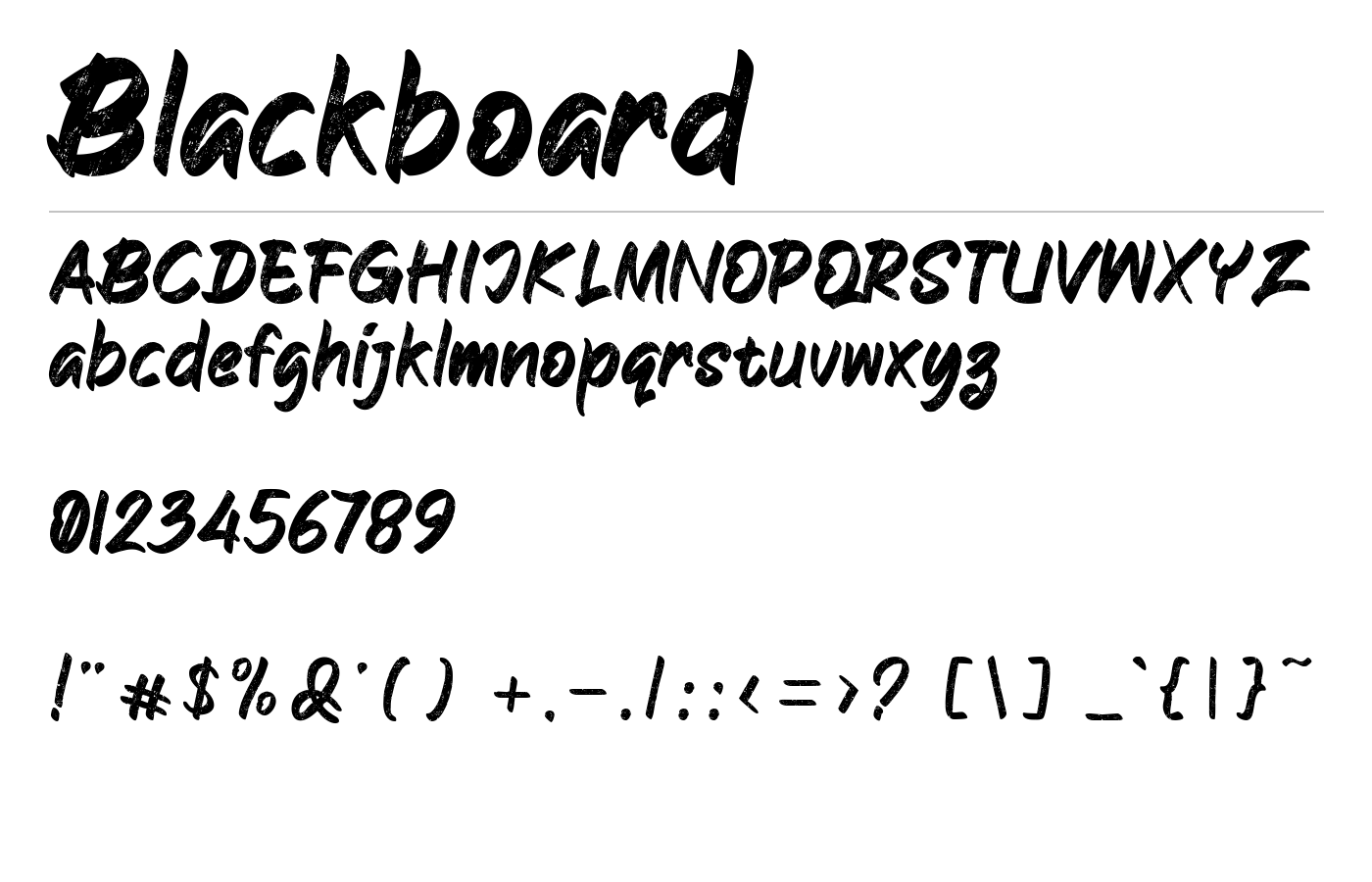
Blackboard Font is a casual, bold script typeface that mimics the textured, hand-drawn look of chalk on a blackboard. Its lively and slightly rough strokes give it an informal, approachable feel, making it ideal for playful or educational themes, creative branding, and eye-catching headlines where a hand-crafted, friendly vibe is desired.
Blackboard Font
About Blackboard Font